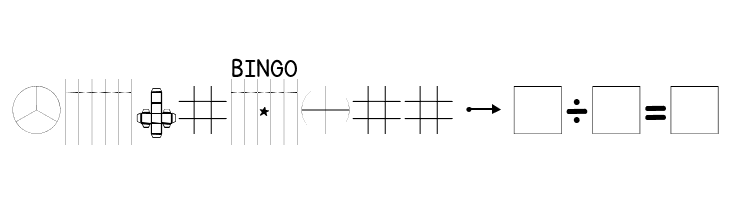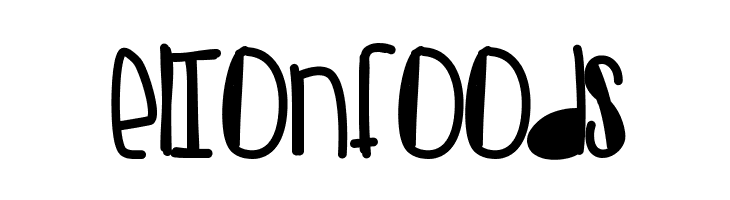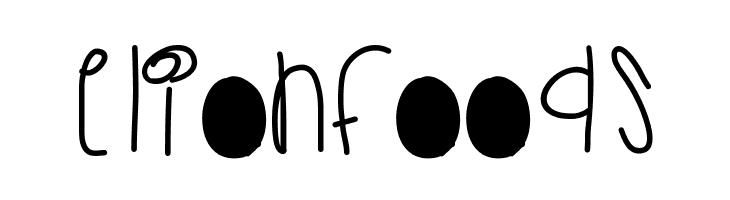
A playful and whimsical collection of hand-drawn dingbats featuring various symbols.
A playful and decorative icon set of alien heads and UFO symbols.
A bold, iconic font featuring symbols of popular social media and tech brands.
A decorative collection of floral and geometric symbols for artistic embellishments.
A decorative, game-themed font with playful board game symbols and shapes.
A playful, hand-drawn font with bold, rounded characters and whimsical symbols.
A playful and whimsical font with rounded, elongated characters and quirky symbols.
A playful, hand-drawn font with tall, narrow letters and quirky symbols.